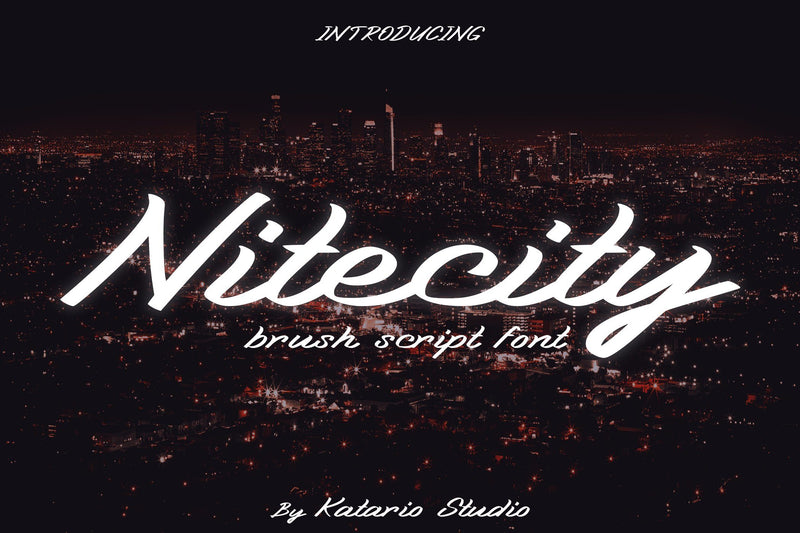
Nitecity | Modern Brush Font
Introducing, Nitecity - A modern brush script typeface. Brush font based on manual hand writing with a strong brush stroke. This type of font perfectly made for logotype, your brand name, game title, movie title, post card, greeting card, labels, invitations, magazine, website, stationery or any type of advertising purpose.